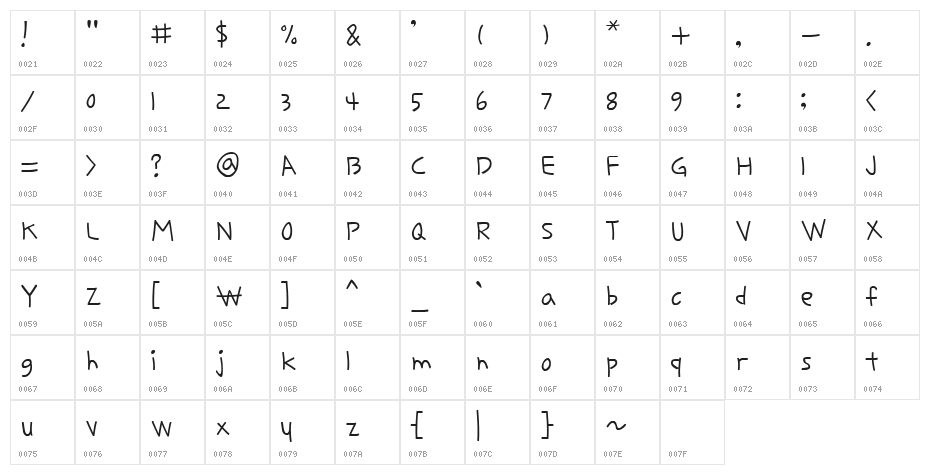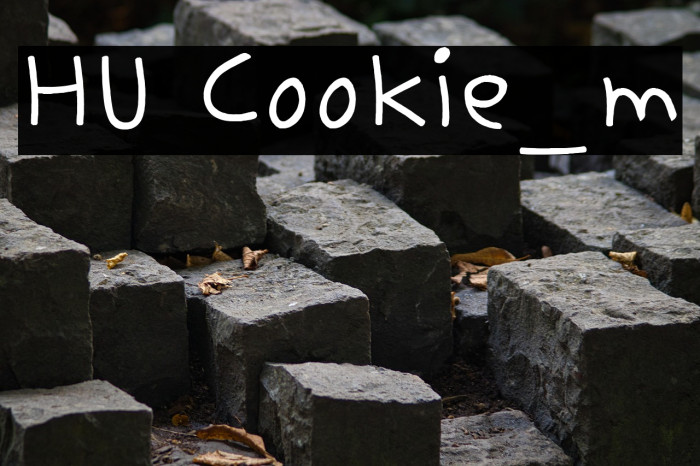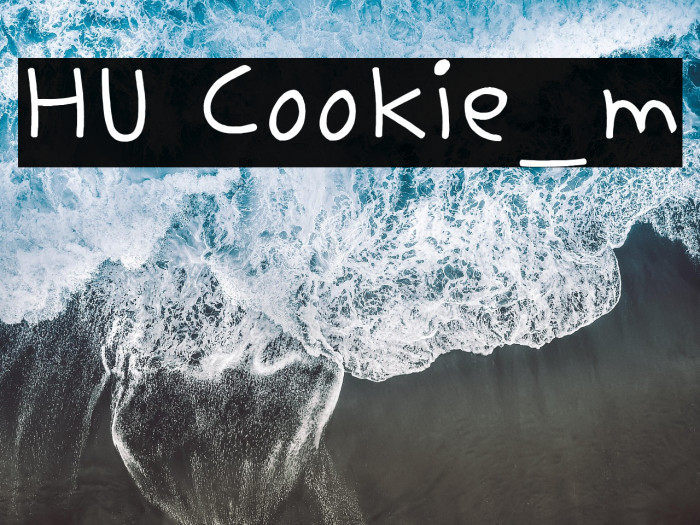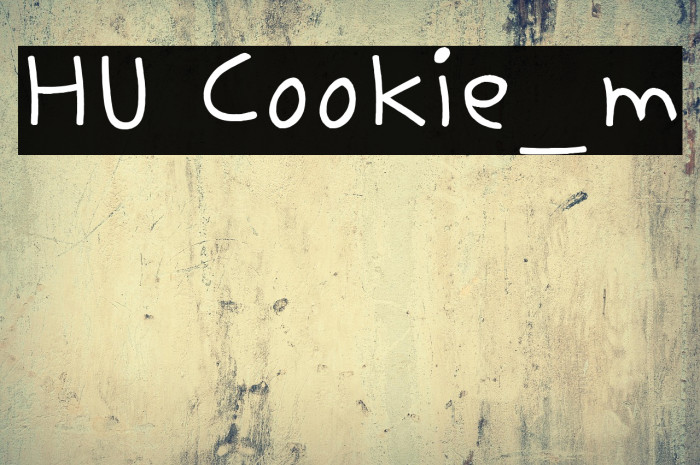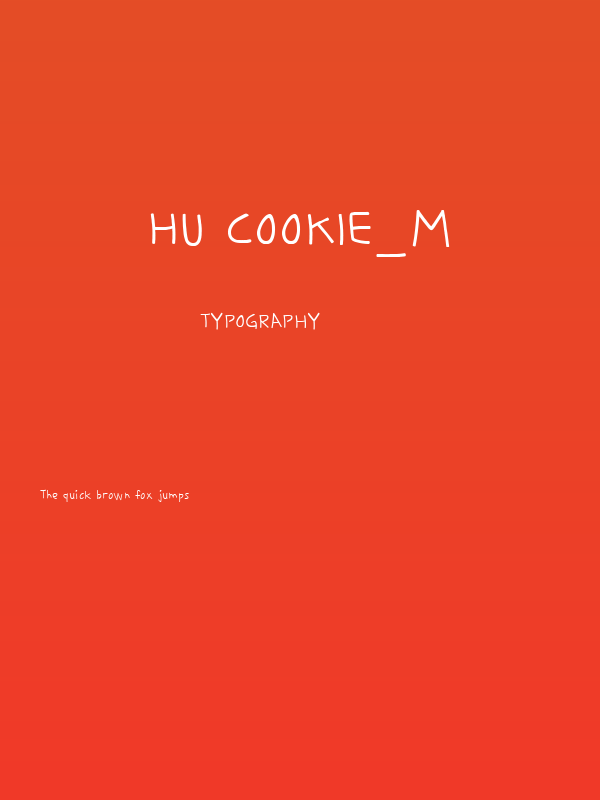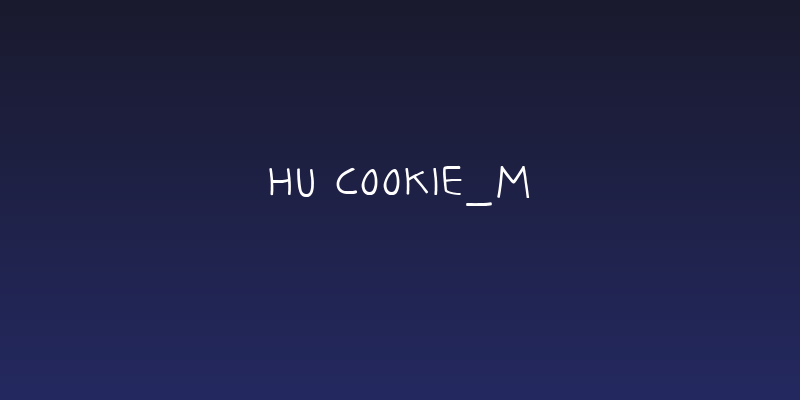
HU Cookie_m Font
HU Cookie_m Description
This playful and informal font features a handwritten style with a casual and friendly appearance. The letters are slightly irregular, adding a personal touch that mimics natural handwriting. The strokes are consistent in width, giving it a uniform look while maintaining a relaxed vibe. The font includes both uppercase and lowercase letters, numerals, and a variety of special characters, making it versatile for different uses. Its simplicity and charm make it suitable for projects that require a personal or whimsical touch.
| Use Case | Headlines, Informal text, Personal projects |
| Proposed Projects | Ideal for greeting cards, children's books, personal blogs, and informal branding. |